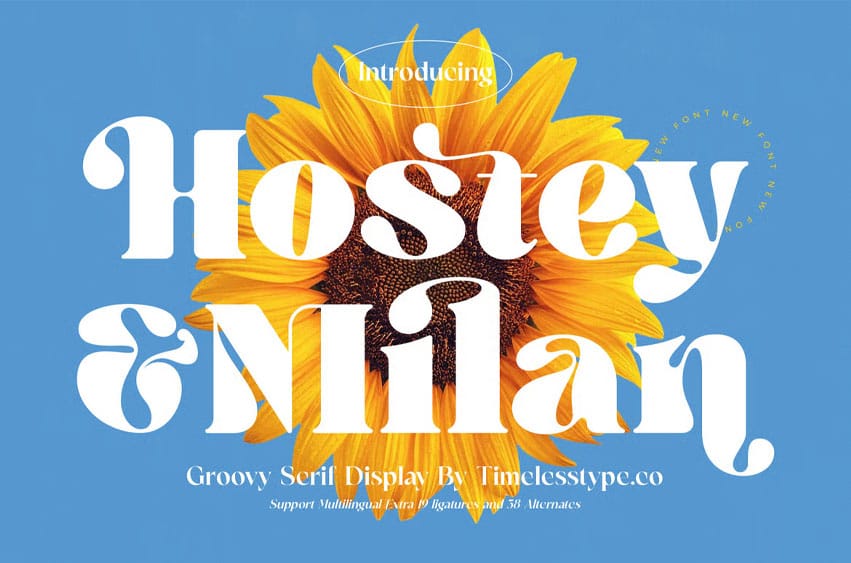
Hostey & Milan Font is a groovy serif display font featuring bold curves, playful swashes, and a warm retro charm that instantly brings joyful, expressive character to any design.
Its sculpted letterforms and smooth stylistic alternates create a stylish, friendly, and highly decorative look—perfect for branding, packaging, posters, lifestyle content, social media graphics, invitations, and any creative project that needs a vibrant, nostalgic flair. With its generous ligatures and artistic alternates, Hostey & Milan gives designers a versatile retro serif with standout personality and modern polish.